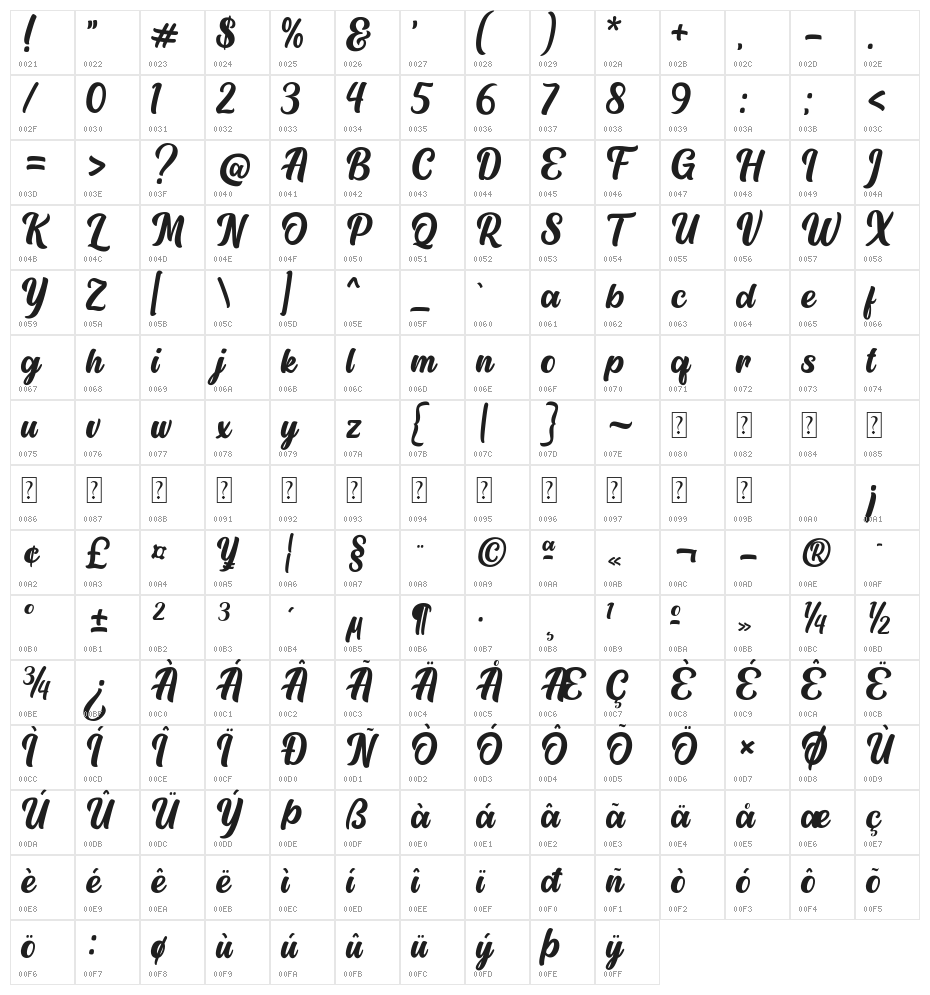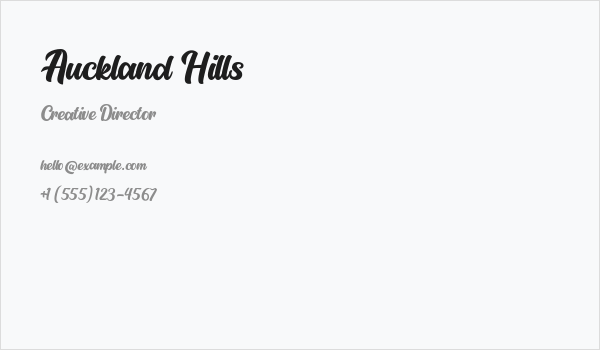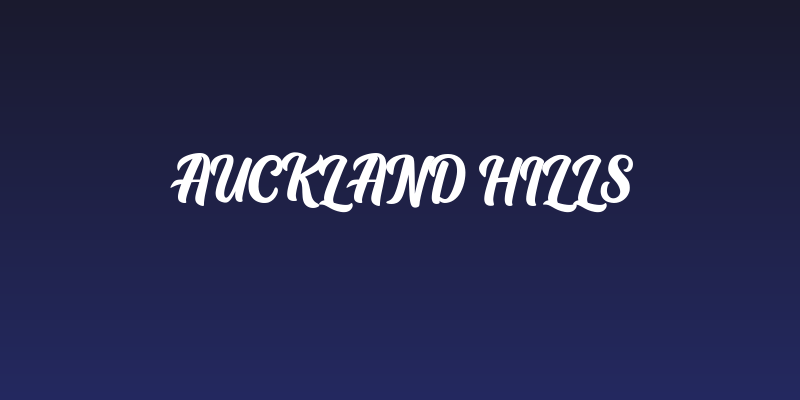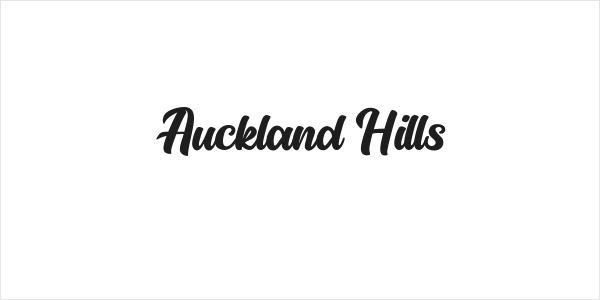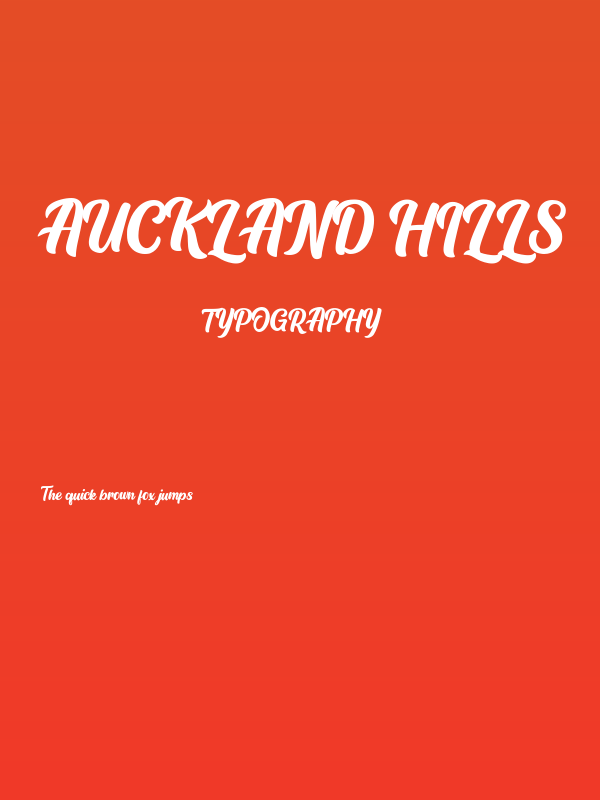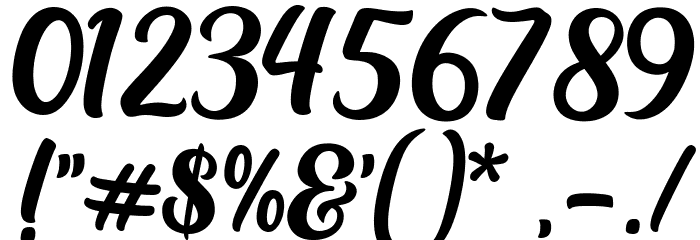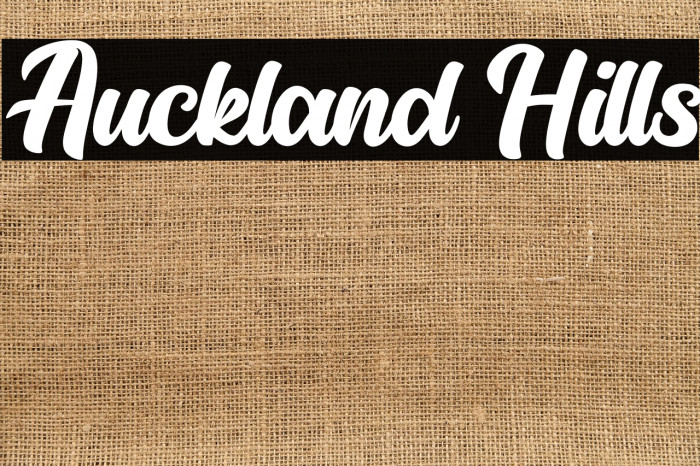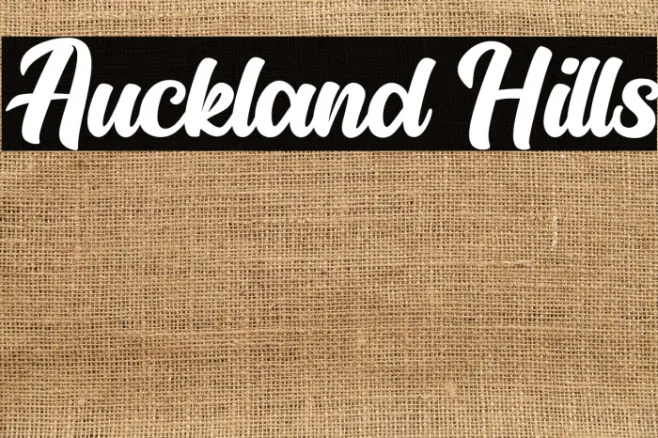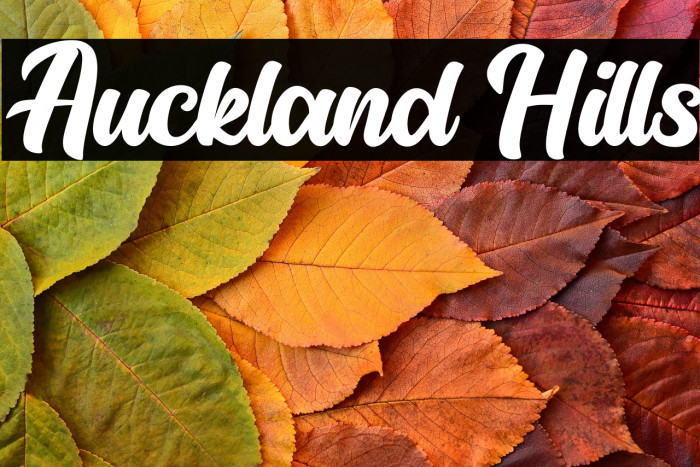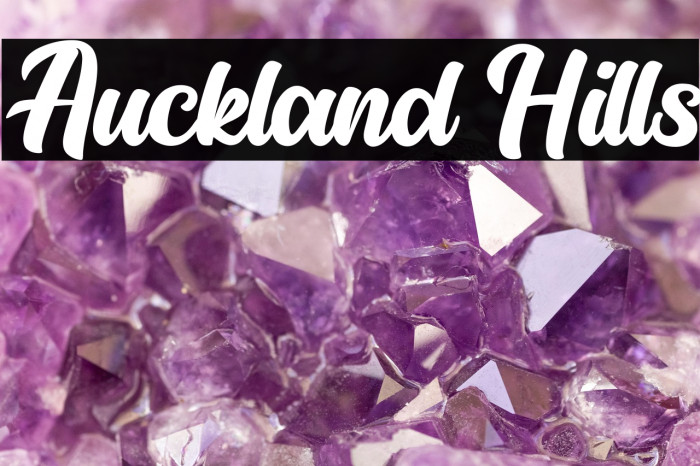
Auckland Hills Font
Auckland Hills Description
This font features a bold and dynamic script style with a modern flair. The characters are interconnected, creating a fluid and continuous flow that mimics natural handwriting. The uppercase letters are slightly larger and more pronounced, adding a sense of elegance and prominence. The lowercase letters maintain a consistent rhythm, enhancing readability while preserving the artistic touch. The numerals are well-integrated, matching the overall style with smooth curves and balanced proportions. Special characters are crafted with the same attention to detail, ensuring they complement the alphabetic characters seamlessly. This font exudes a sense of creativity and sophistication, making it suitable for various design applications.